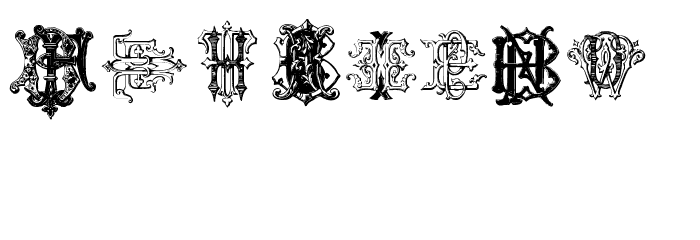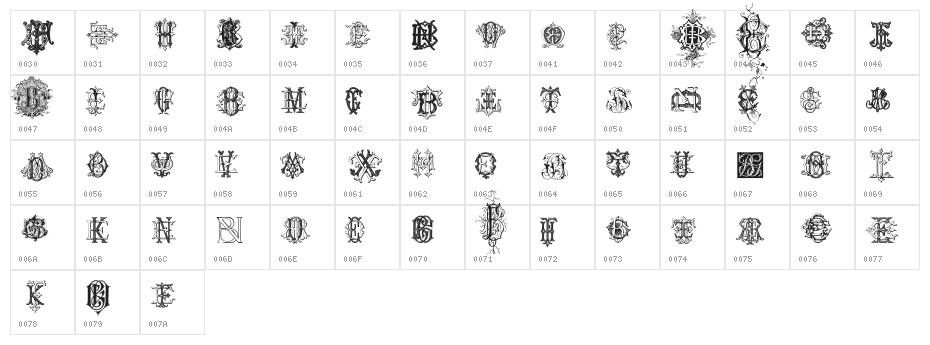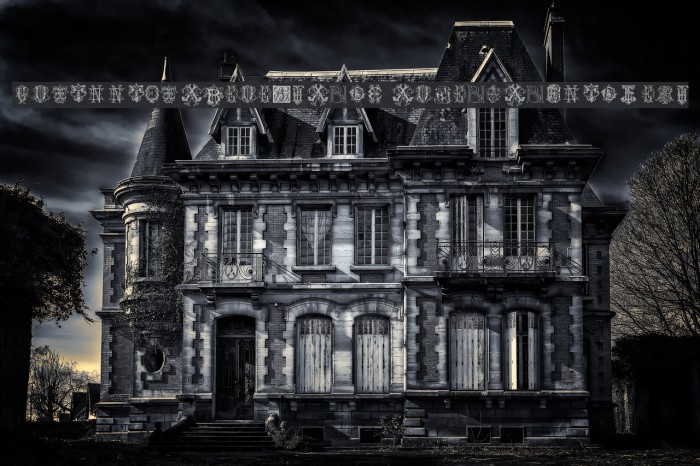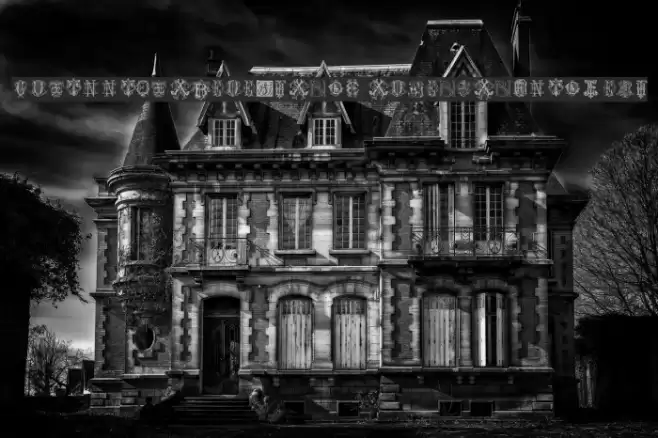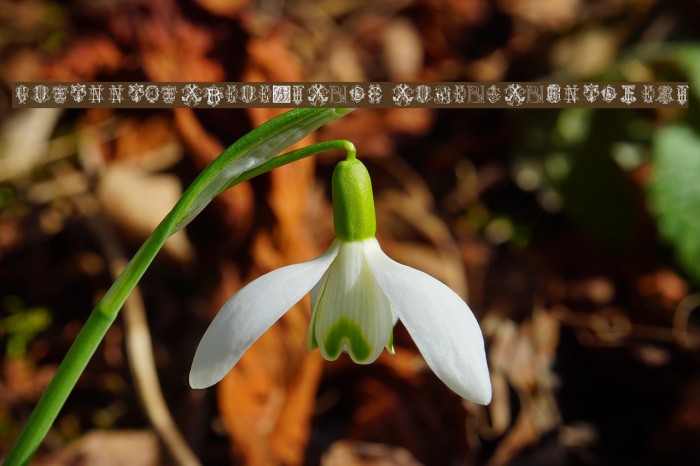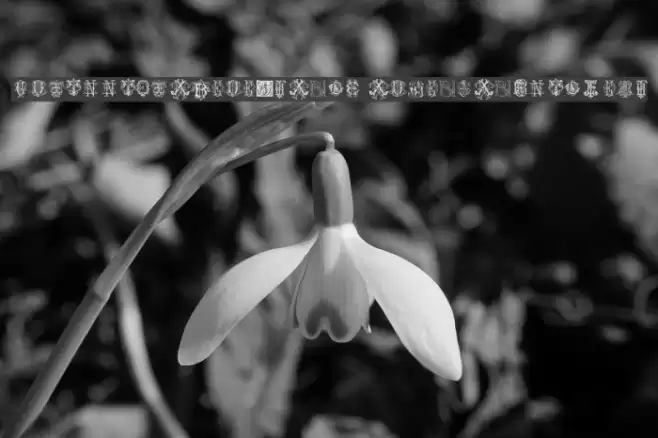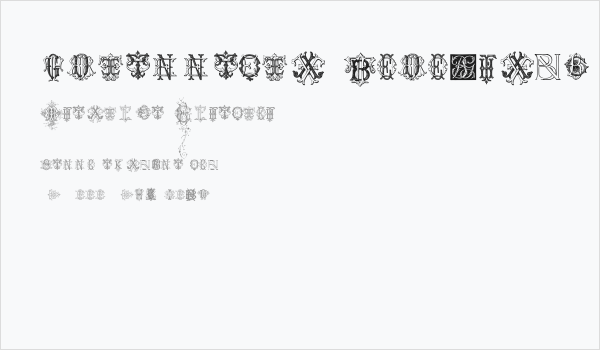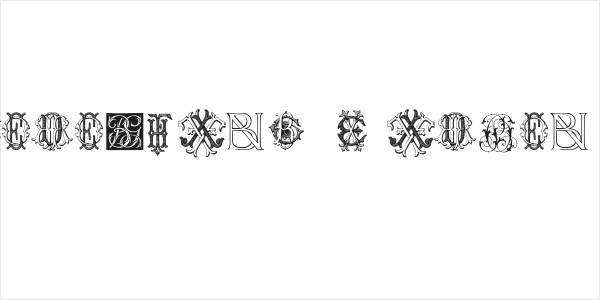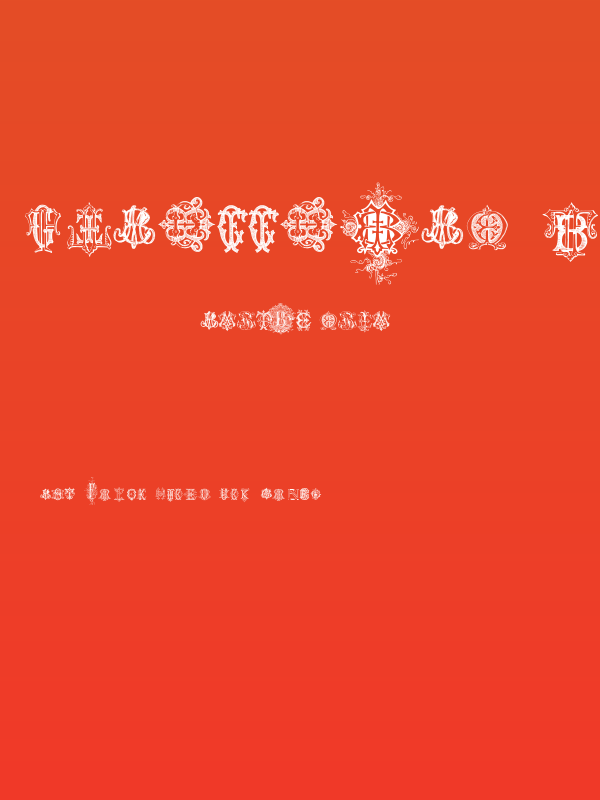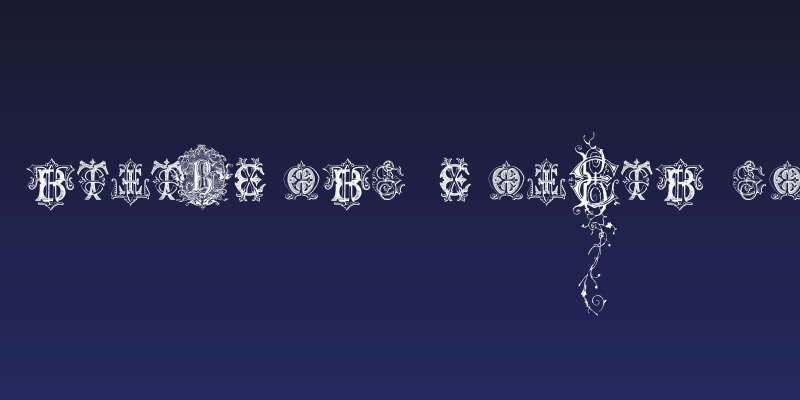
Intellecta Monograms Random Samples Four Font
Intellecta Monograms Random Samples Four Description
This font is an intricate and ornate design, featuring highly decorative and elaborate letterforms. Each character is embellished with flourishes, swirls, and detailed patterns, reminiscent of vintage monograms or heraldic emblems. The complexity of the design gives it a luxurious and sophisticated appearance, making it suitable for projects that require a touch of elegance and historical charm. The font is not intended for readability at small sizes but rather for decorative purposes where its artistic qualities can be appreciated.
Overall StyleVintage
Use CaseLogos, Decorative elements
Proposed ProjectsIdeal for wedding invitations, luxury branding, certificates, and decorative monograms.